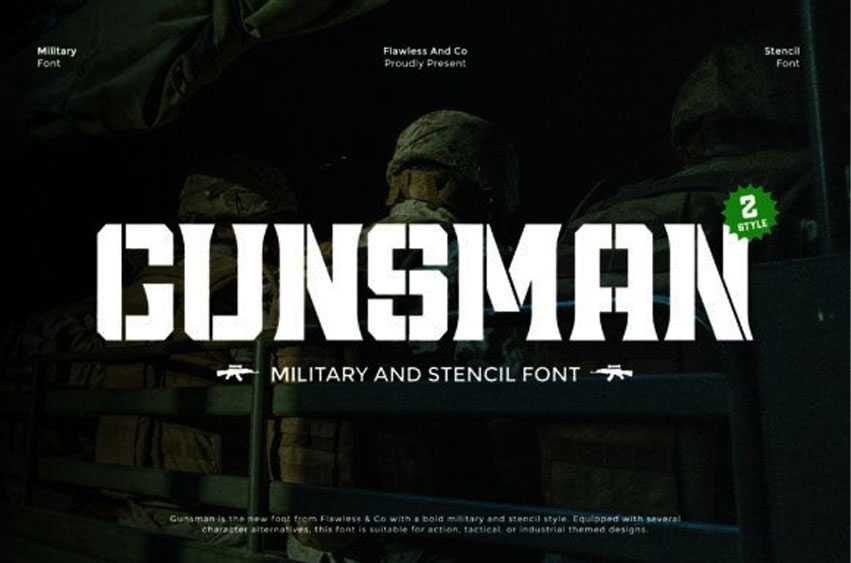
Gunsman Font
Gunsman Font is a bold military and stencil-style font, designed for strength, precision, and authority. With its sharp cuts and rugged edges, it embodies the toughness of tactical and industrial aesthetics.
Equipped with multiple character alternatives, this font is perfect for action-themed projects, combat-inspired branding, army posters, tactical gear packaging, survival guides, or any design that demands a strong military presence.